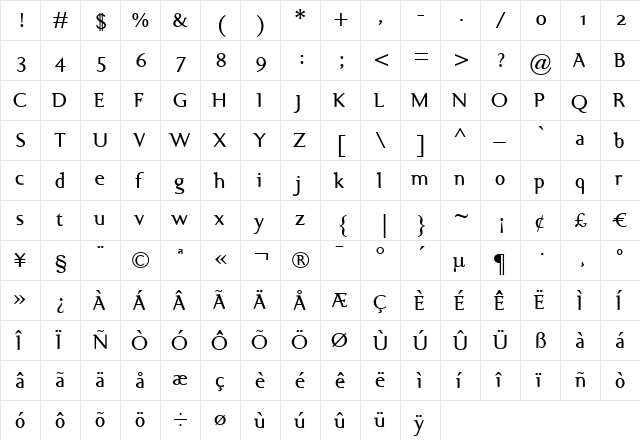
Ela Demiserif Bold
Design Context for Ela Demiserif Typeface
Ela Demiserif brings classic typographic sensibility to the table — its serifs and measured letterforms reflect centuries of print heritage. The heavy weight commands attention and anchors typographic hierarchies.
Pro Tip: Set Ela Demiserif with slightly loose tracking in headlines to let each letterform's detail read clearly at display sizes.